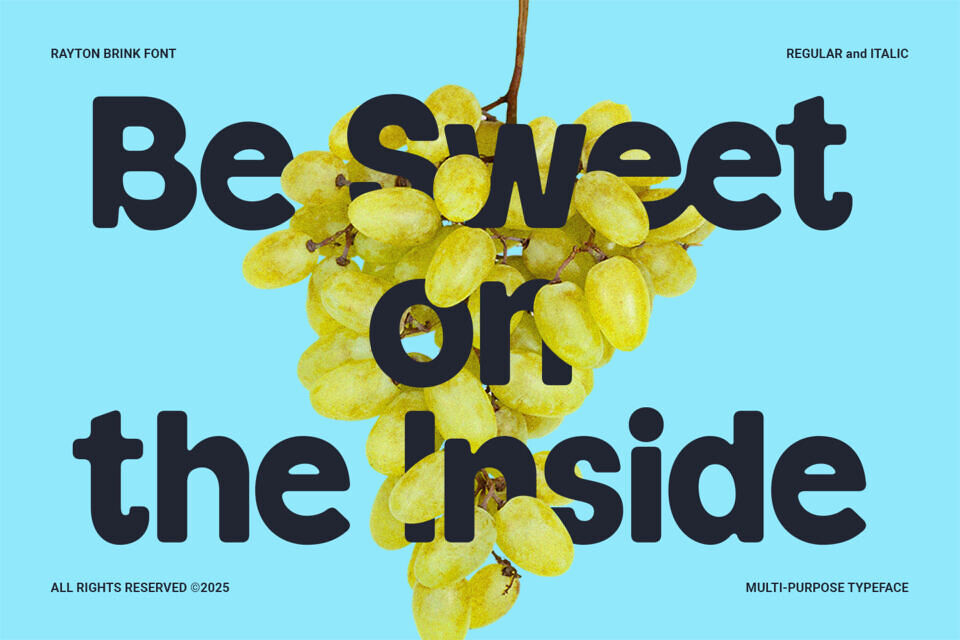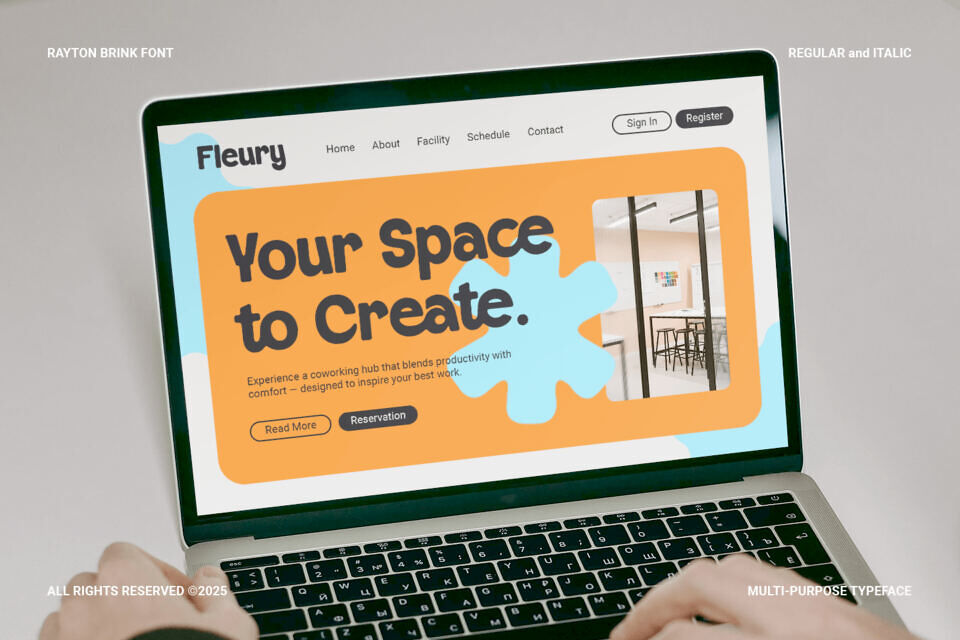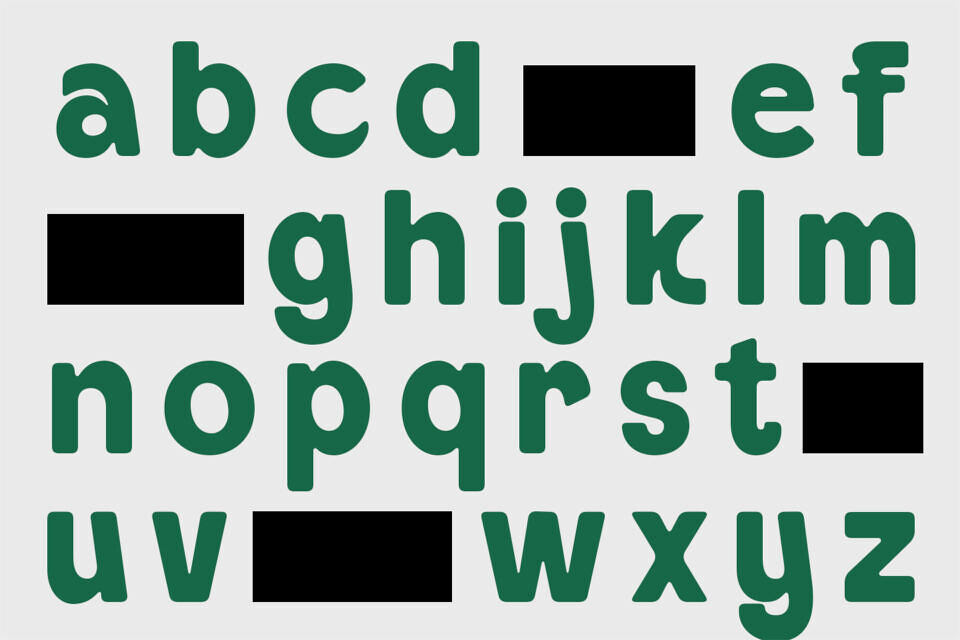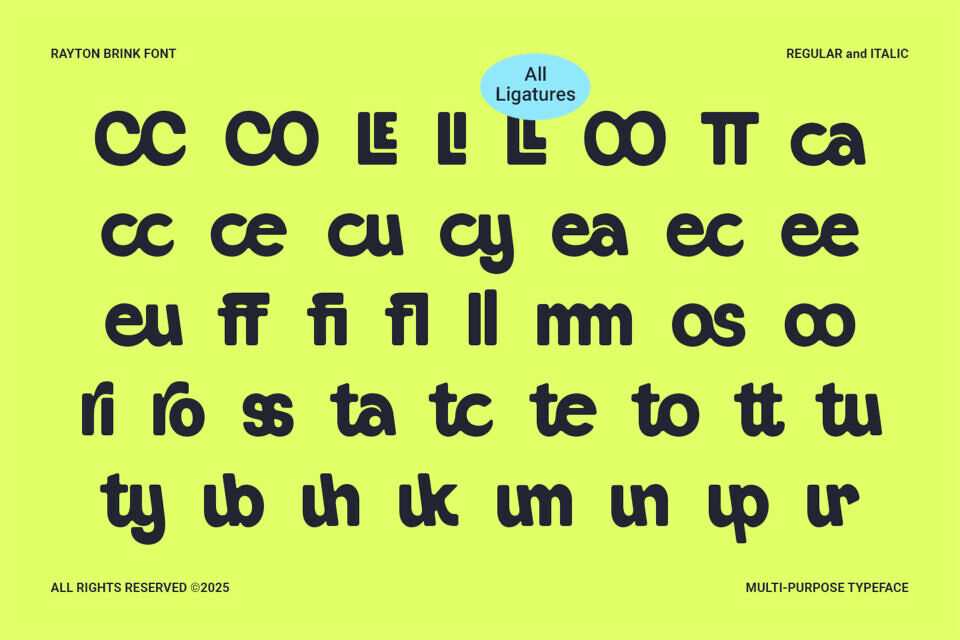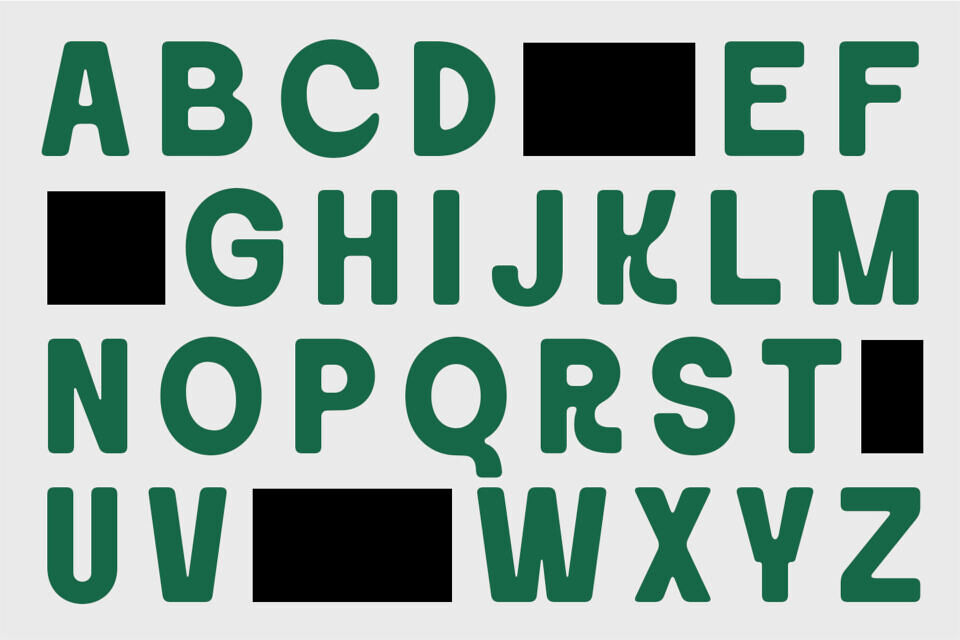
Rayton Brink is a friendly, rounded typeface designed to bring joy, clarity, and approachability to any brand. With smooth curves, playful forms, and intentional letter design, it enhances brand identity, packaging, website headers, app interfaces, kids’ content, and food or tech branding.
Combining modern geometry with nostalgic charm, Rayton Brink balances legibility and personality, making every design feel warm, creative, and engaging. Ideal for bold headlines, vibrant displays, and versatile branding applications, this font conveys a professional yet approachable voice, perfect for brands that want to be fun, memorable, and visually distinctive.